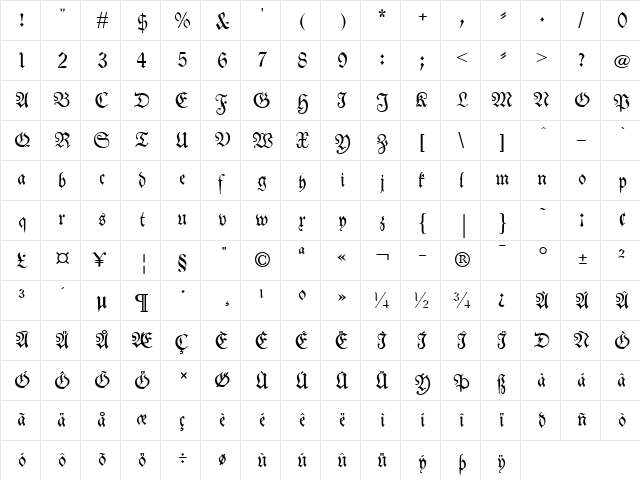
Neue Theuerdank Fraktur UNZ1 Italic
Design Context for Neue Theuerdank Fraktur UNZ1 Typeface
Neue Theuerdank Fraktur UNZ1 draws on the rich tradition of blackletter calligraphy, with dense, angular strokes that evoke medieval manuscripts and old-world craftsmanship. The dynamic lean of this cut emphasises speed and emphasis in any layout.
A natural fit for music packaging, gothic editorial design, and any project that needs historical weight.
Font Pairing: Pair with a clean neutral sans-serif for body copy to let Neue Theuerdank Fraktur UNZ1's character lead without overwhelming the composition.
Pro Tip: Reserve Neue Theuerdank Fraktur UNZ1 for display and logo use — pair it with a clean sans-serif for body copy to prevent the composition from feeling oppressive.